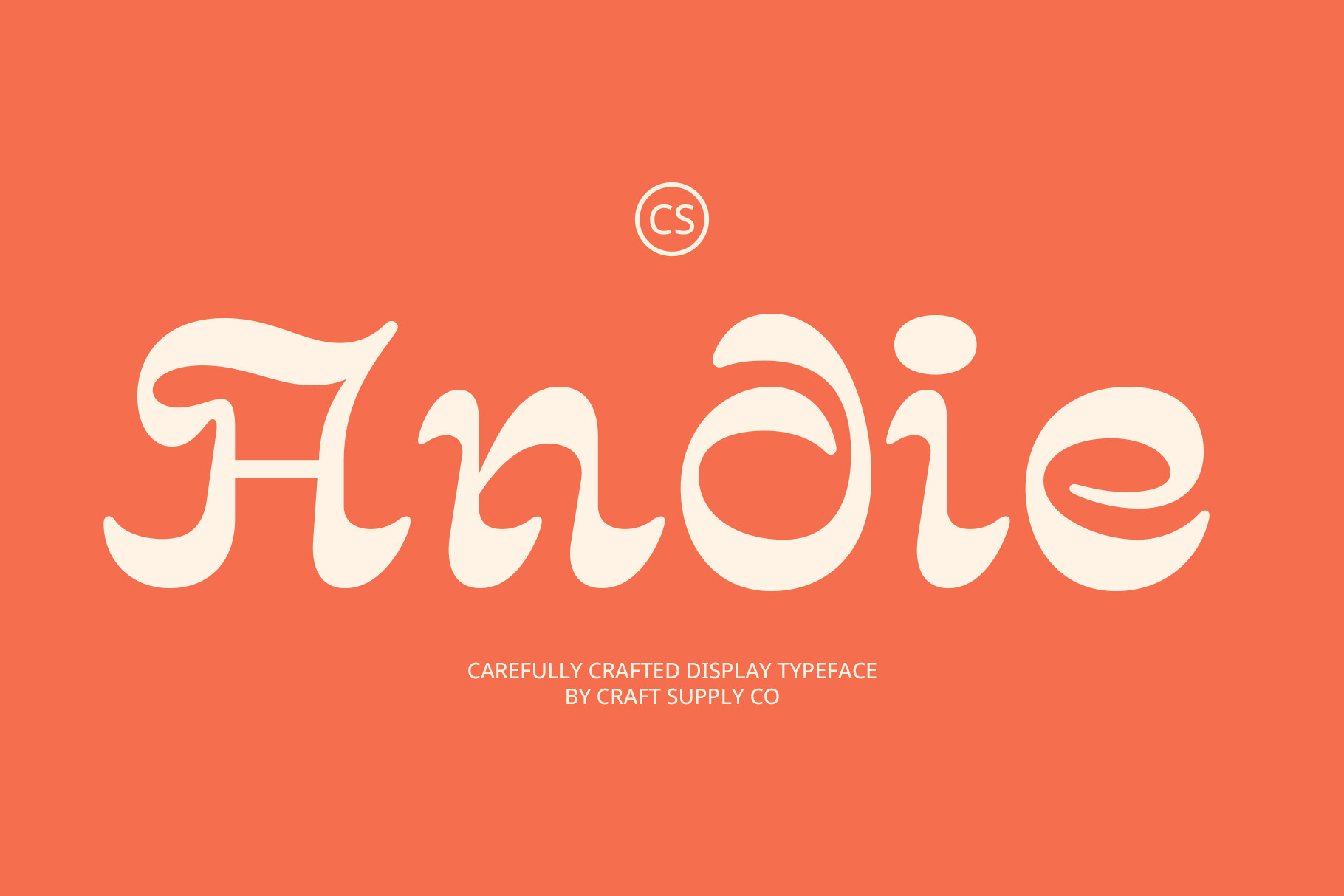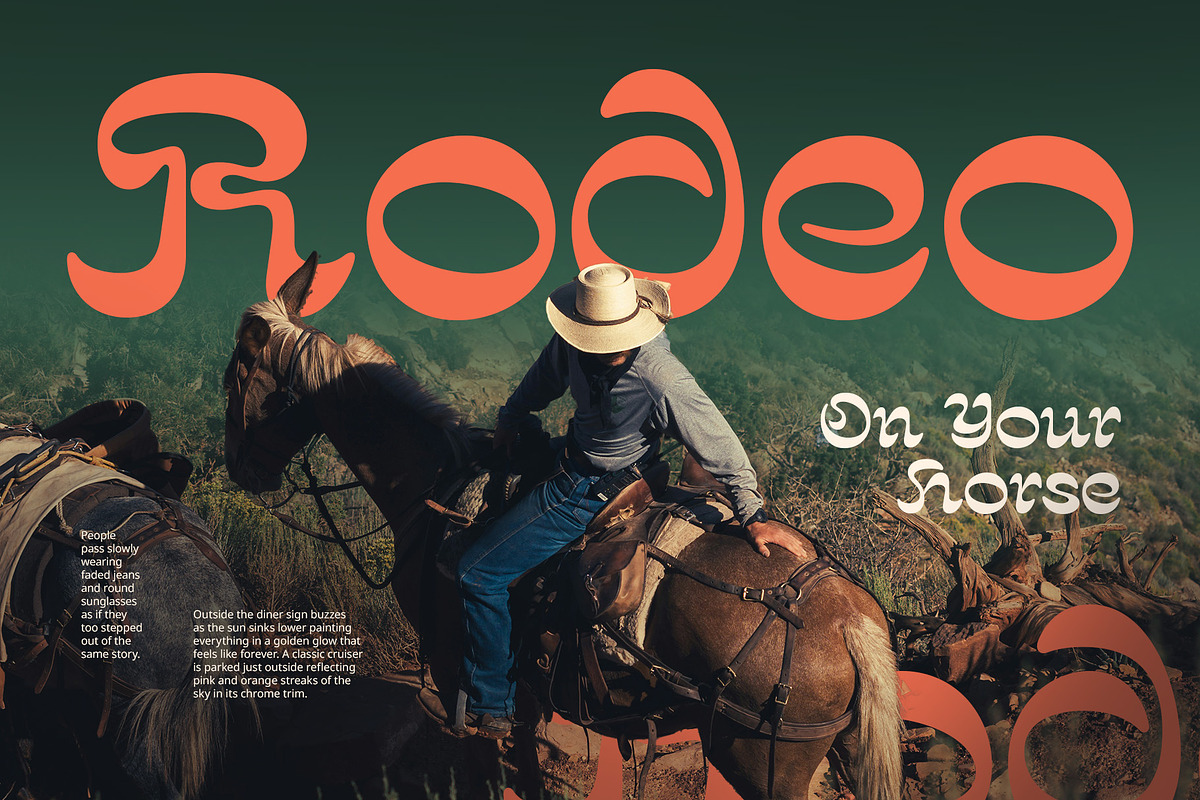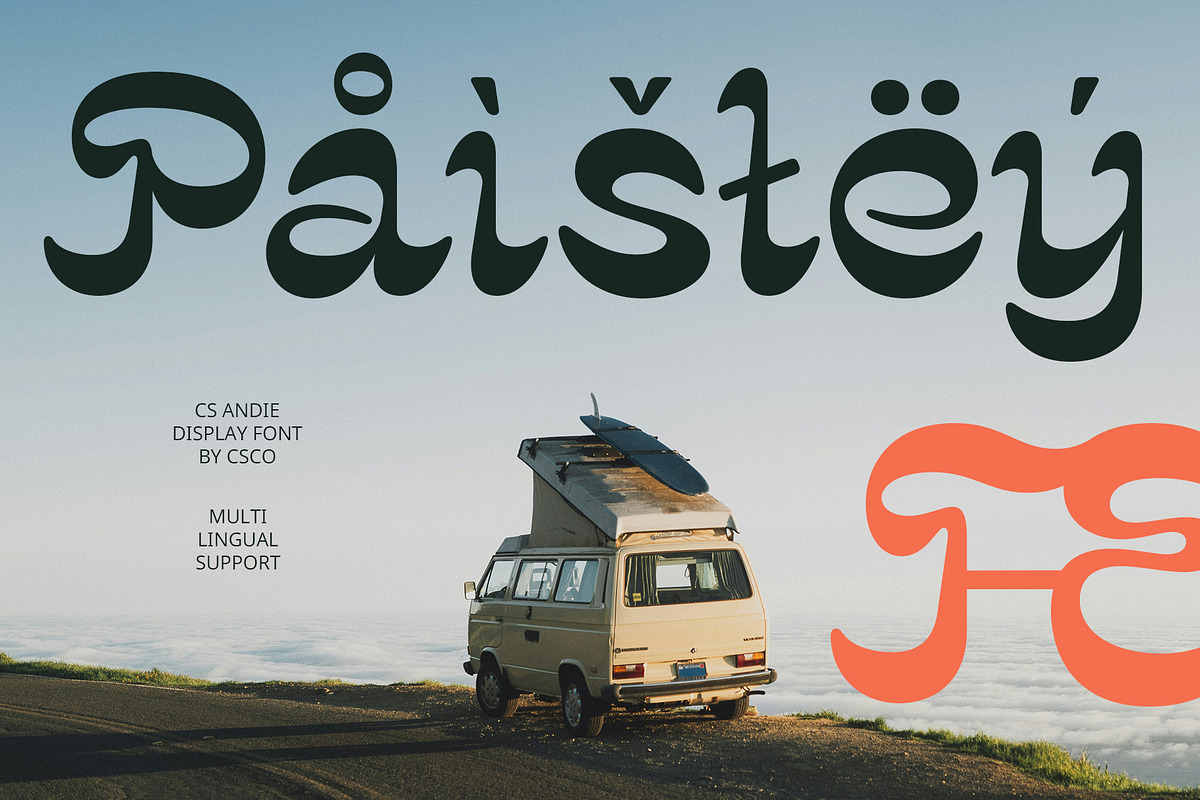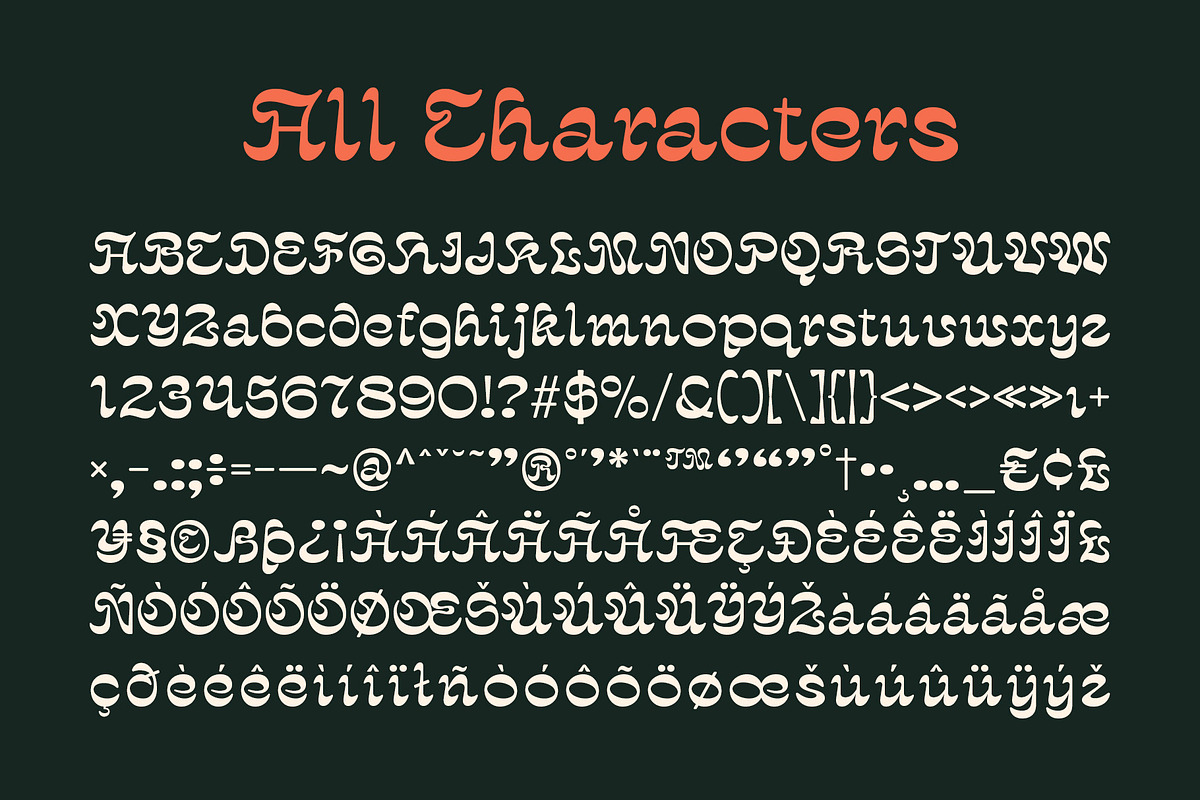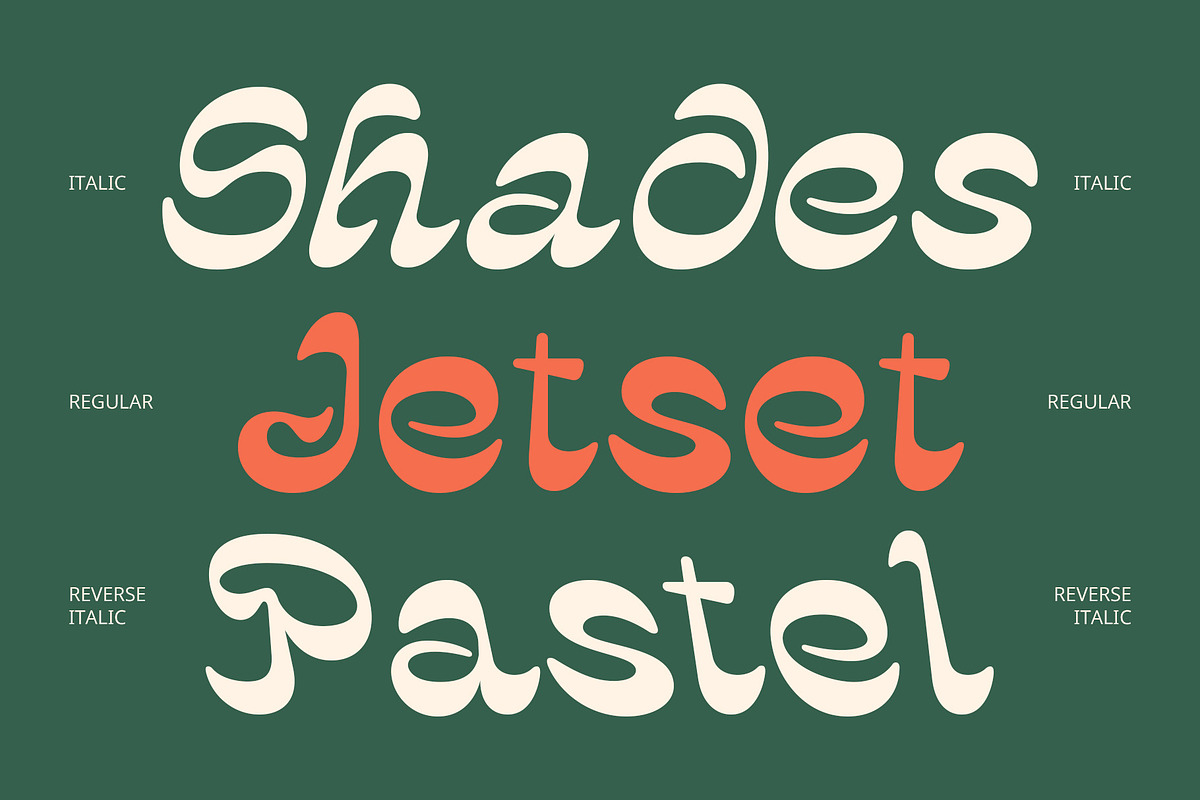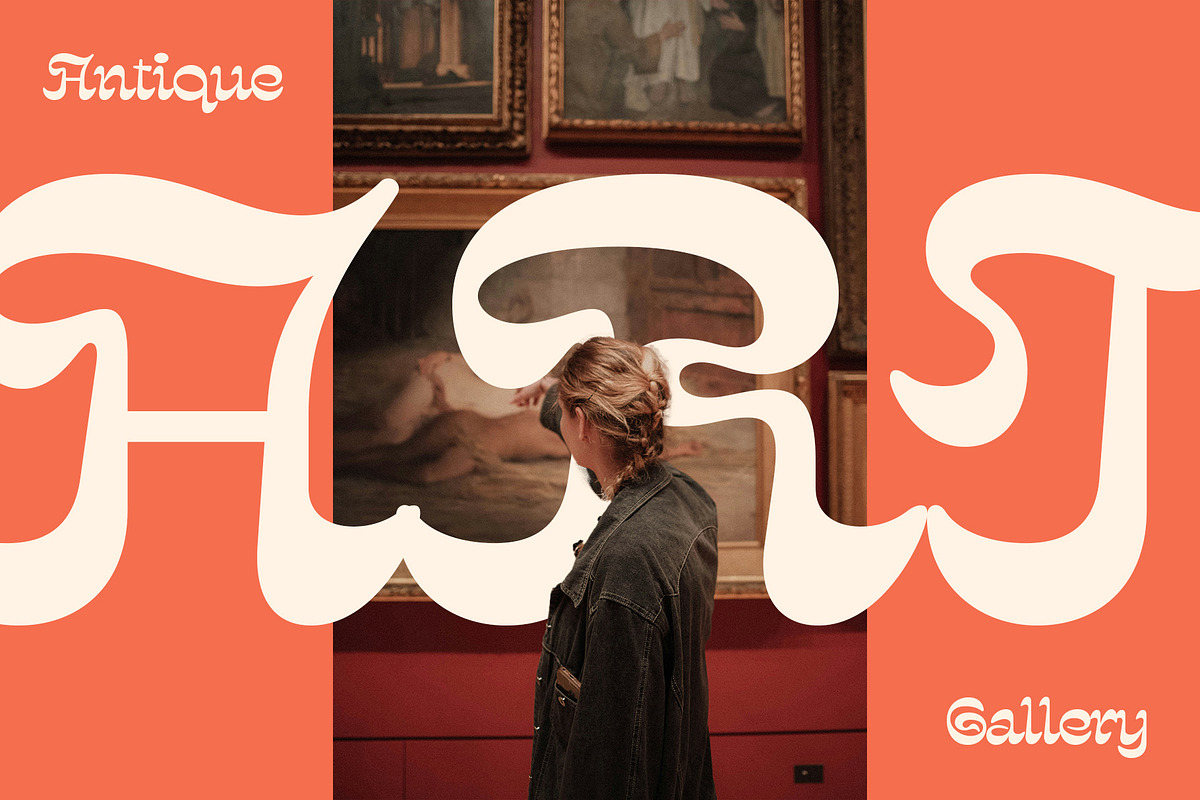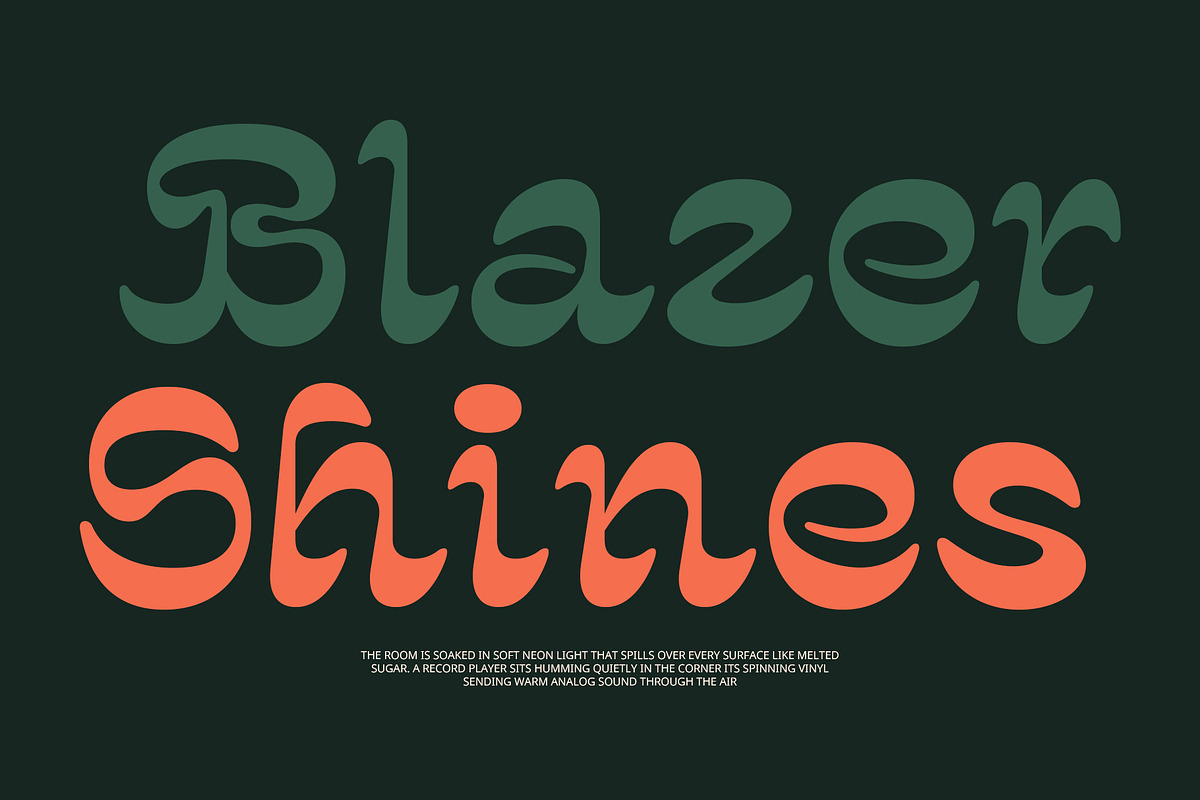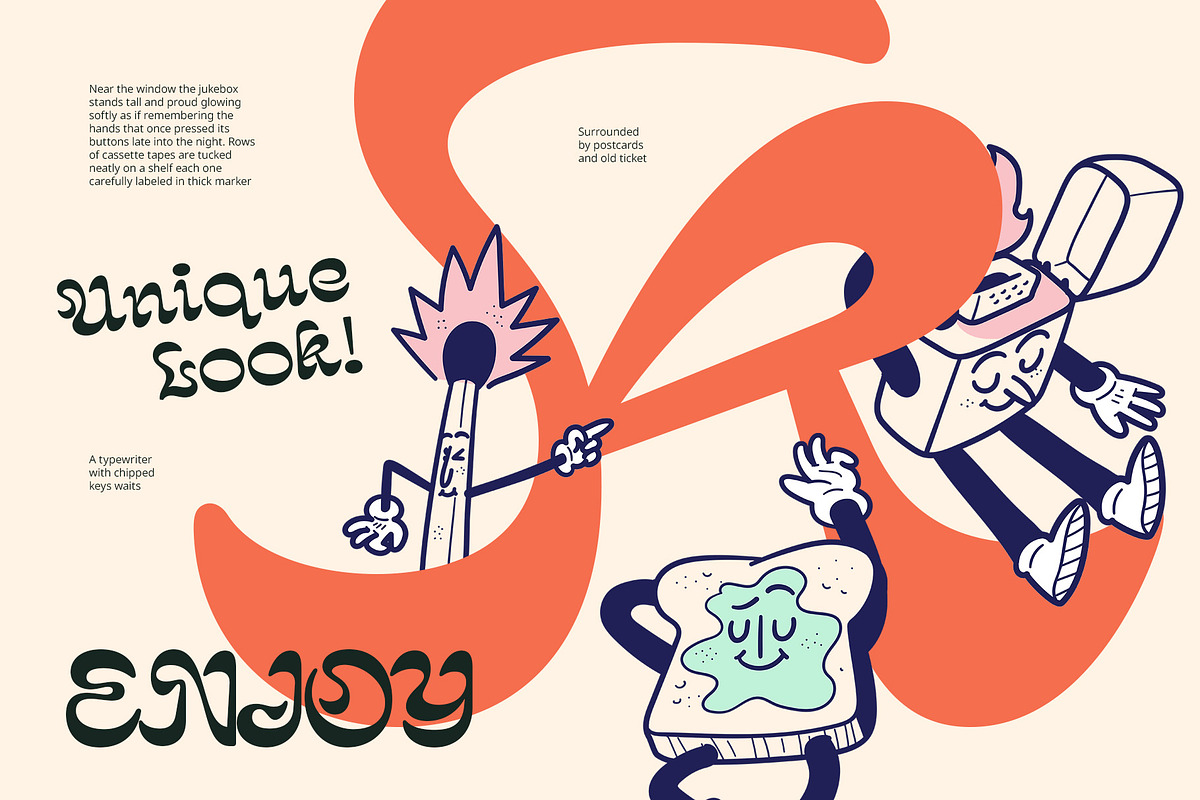
CS Andie – Trippy Font
CS Andie Font – A Modern Trippy Display Font
Funky Vibes, Fluid Form CS Andie is a modern display font with a trippy, psychedelic twist. Its dynamic, wavy letterforms feel spontaneous and surreal, creating a vibrant and unconventional appearance that captures attention instantly. Despite its experimental style, the font maintains a clean and contemporary structure—making it both wild and visually accessible.
Expressive, Cheerful, and Free-Spirited Designed for designs that want to break boundaries, CS Andie radiates a funky and cheerful energy. The unpredictable rhythm of its forms reflects freedom and creativity, ideal for projects that thrive on uniqueness—like music posters, rave flyers, zines, or album covers.
Perfect for Creative Statement Pieces Whether you’re working on a psychedelic visual identity, bold editorial layout, or branding for an artistic lifestyle brand, CS Andie adds an unmistakable playful edge. Its handcrafted essence gives it a personal feel, while the bold styling ensures your message comes through loud and clear.
Modern Meets Psychedelia CS Andie is not just a display typeface—it’s a statement. A perfect tool for creatives, musicians, illustrators, and brands that want to stand out with originality and energy. Its unique personality makes any text feel like a visual artwork, giving your designs a vivid and unforgettable impact.
- CS Andie Regular
- CS Andie Italic
- CS Andie Reverse Italic